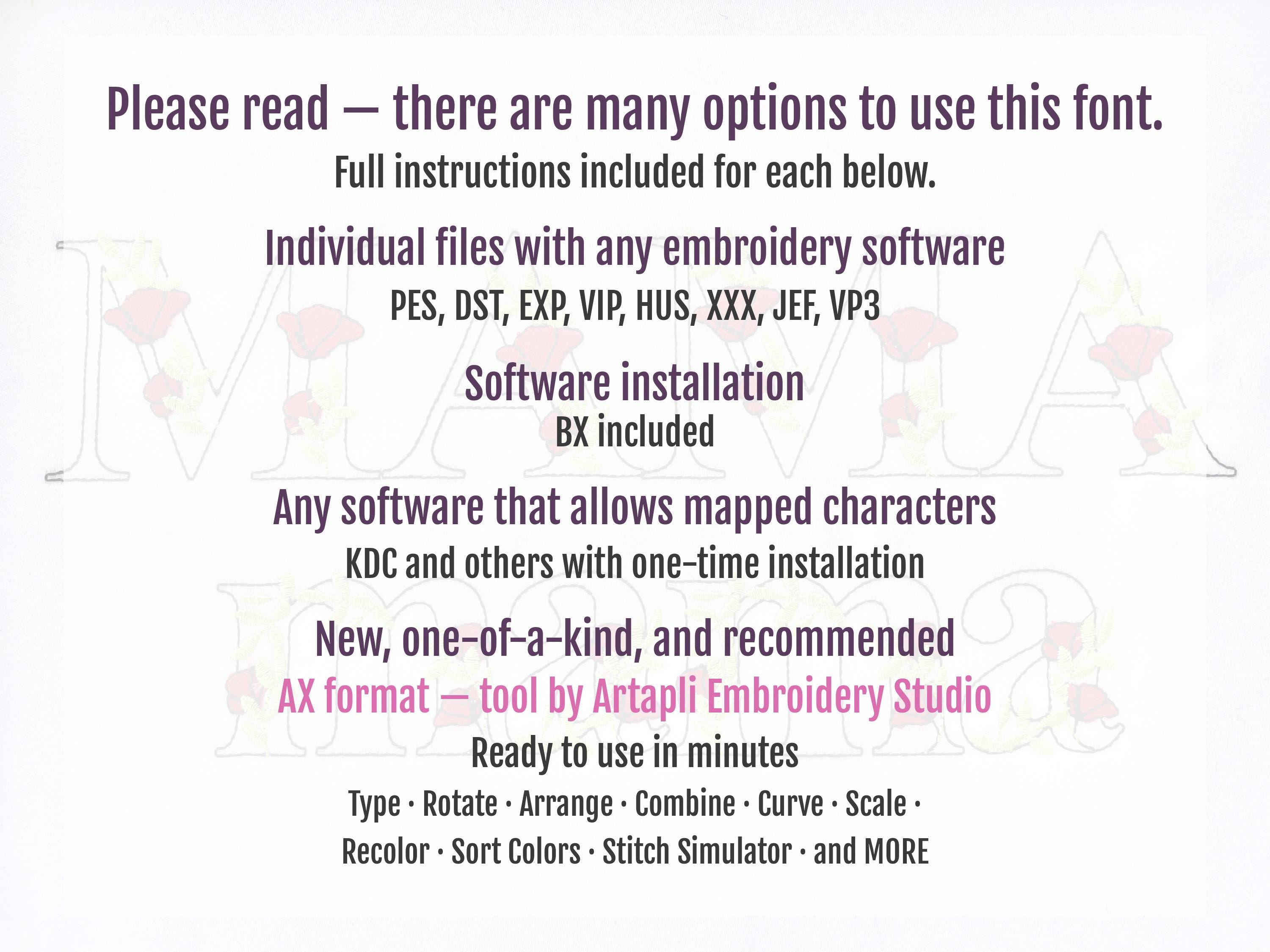
Light Poppy red Rose Floral Font Flower alphabet uppercase and lowercase letters initial monogram machine embroidery designs, BX included
Uppercase and lowercase letters Aa-Zz, numbers 0-9, and special marks & - . ?
This is a light stitch design. The letters have outline and poppy flowers. The background fabric looks through. Stunning effect!